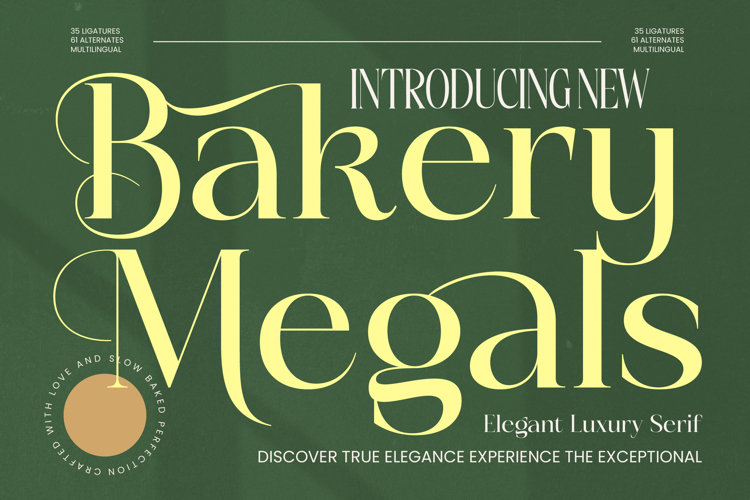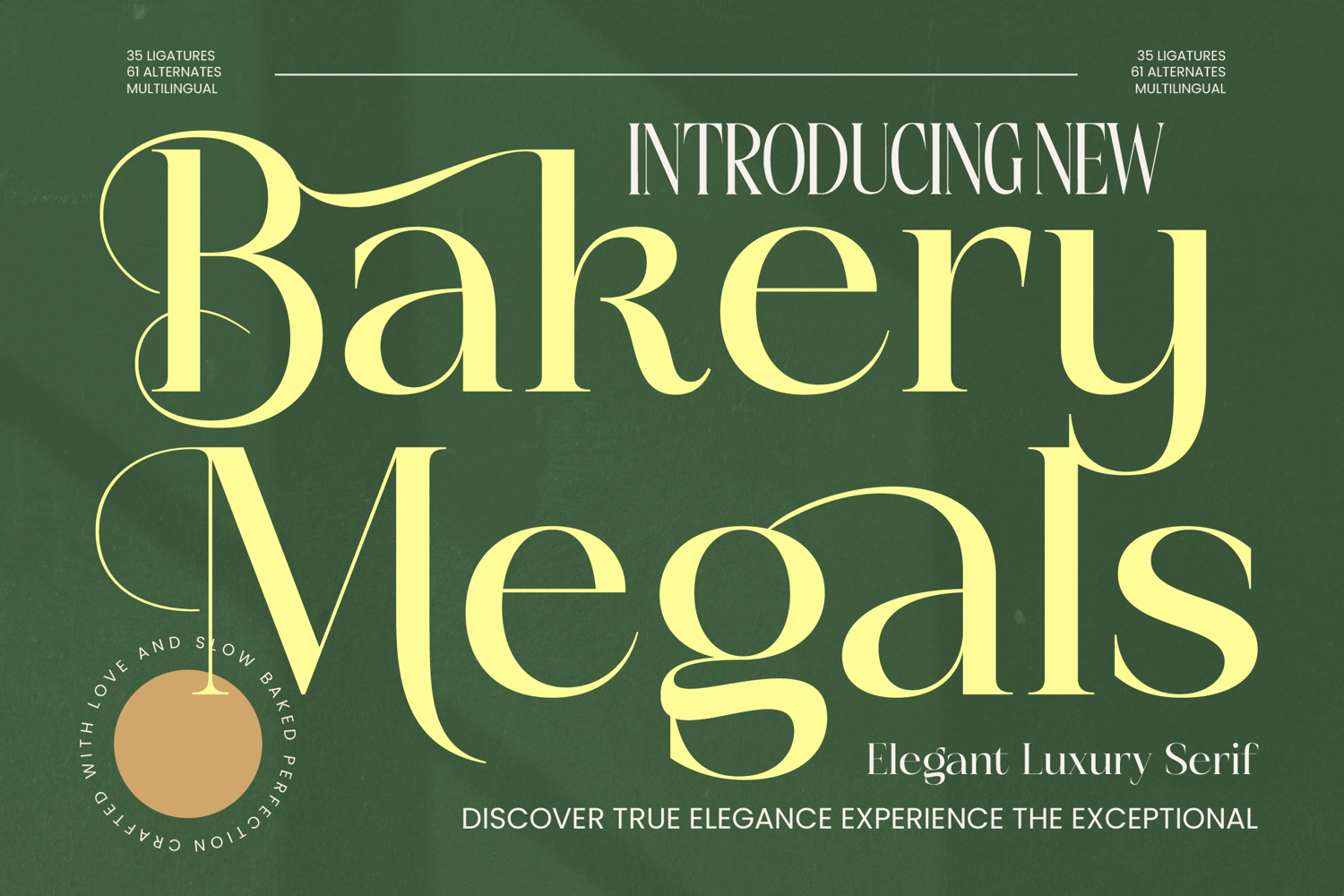
Bakery Megals Elegant Luxury Serif
Bakery Megals – Elegant Luxury Serif
Bakery Megals invites you into a world of refined aesthetics where every curve and stroke tells a story of timeless grace. This typeface is an exquisite balance of classical structure and modern fluidity, making it the ultimate choice for designers who demand excellence in their visual narratives.
Drawing inspiration from the meticulous craft of artisanal heritage, the atmosphere of this font evokes the polished serenity of high-end editorial houses and luxury boutiques. It captures a sense of slow-baked perfection, where every detail is intentionally placed to create a harmonious and inviting visual experience.
This modern serif display is a masterclass in luxury typography, featuring a high-contrast serif design that ensures a powerful branding impact. As a versatile editorial font, it brings a sophisticated edge to headlines, ensuring your message is delivered with both clarity and an unmistakable sense of prestige.
Keeping pace with the current modern serif trend, this typeface elevates the standard for editorial display fonts through its unique, character-driven typography. It bridges the gap between vintage charm and contemporary minimalism, allowing brands to stay relevant while maintaining an air of classic distinction.